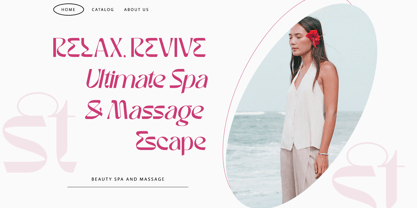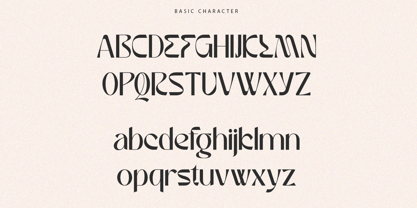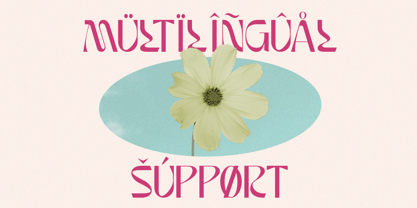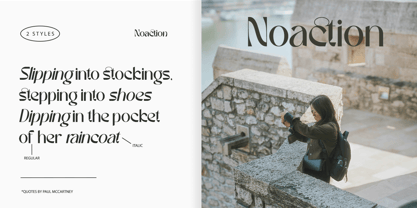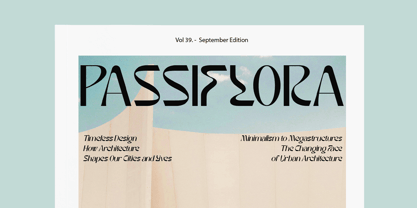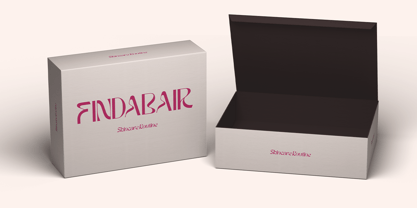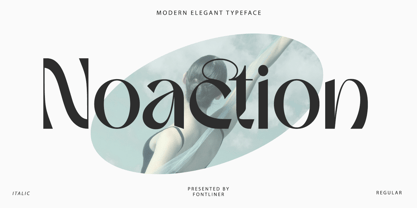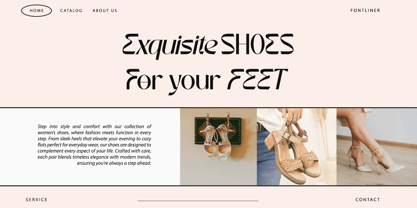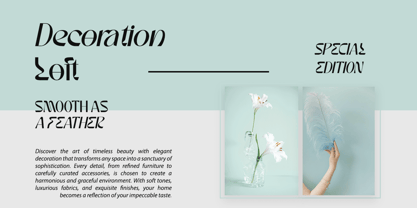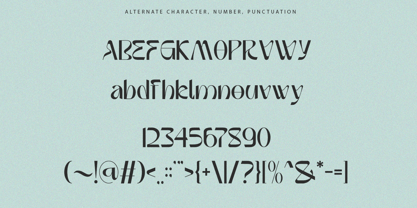
Noaction
by Font Liner
The Noaction Font Family was designed by Ghina Luthfiarieska and published by Font Liner. Noaction contains 2 styles and family package options.
Noaction is an elegant modern typeface. The contrast is beautiful and makes it very pure. Give your text a little elegance and sweetness with some character ligatures and alternates characters in this font. Noaction is ideal for branding, editorial design, and web design, with this font adding a level of elegance to your designs